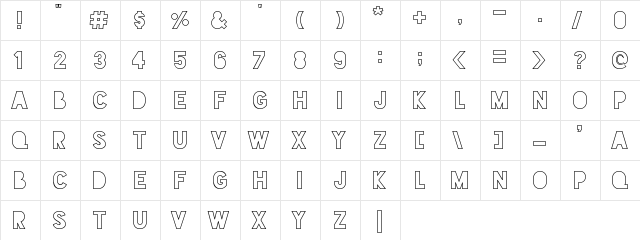
Blackout Sunrise
Design Context for Blackout Typeface
Blackout is a composed and adaptable typeface that performs quietly and consistently across a wide range of design contexts.